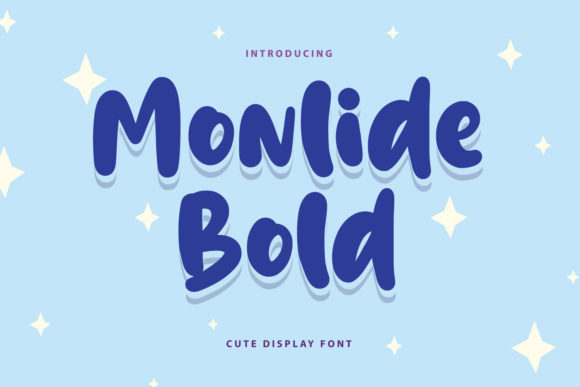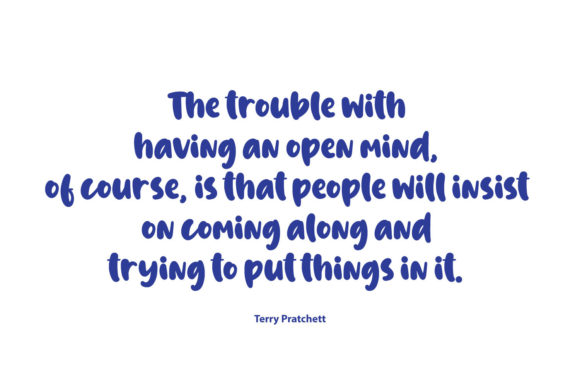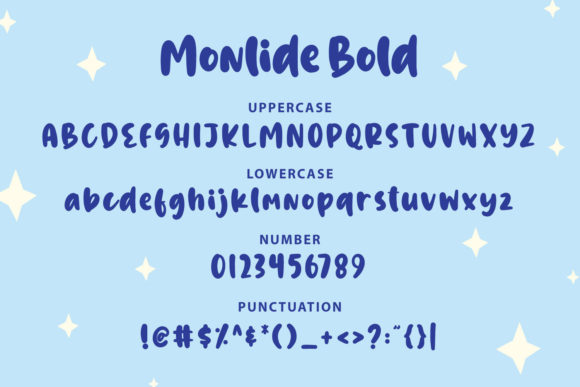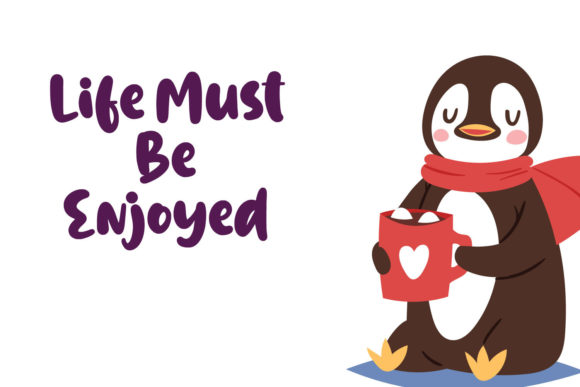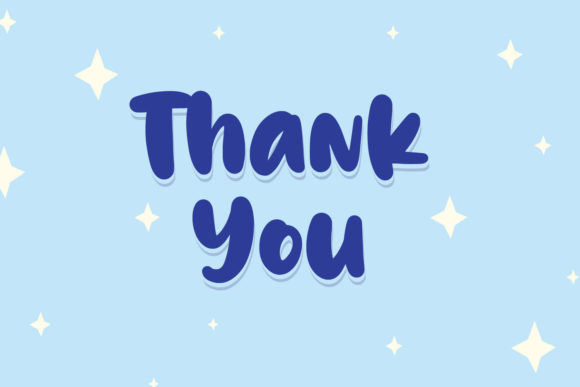
Monlide Bold Font
About Monlide Bold Font
Introducing “Monlide Bold,” a fun and bubbly display font that adds a touch of beauty and playfulness to your designs. Whether you’re working on cartoon-related projects, children’s games, quotes, titles, brand names, book covers, posters, or any other creative endeavor, this font is the perfect choice.
The bold and energetic appearance of “Monlide Bold” immediately grabs attention and creates a cheerful and vibrant atmosphere. The rounded and slightly exaggerated letterforms exude a sense of fun and excitement, making it ideal for projects targeting younger audiences or designs that need a lighthearted and whimsical touch.
One of the key strengths of “Monlide Bold” is its versatility. It can be used across various design contexts, from creating captivating titles for children’s books to adding a playful flair to branding materials. Its bold and bubbly nature injects life and character into your designs, instantly capturing the attention of viewers.
For cartoon-related designs, “Monlide Bold” brings the characters and illustrations to life. The rounded and bubbly letterforms harmonize with the playful nature of cartoons, enhancing the overall visual experience. Whether you’re designing comic strips, animated logos, or character-driven merchandise, this font adds a touch of fun and whimsy that resonates with your audience.
In children’s games and educational materials, “Monlide Bold” creates an engaging and interactive experience. The bold and easily readable letters make it perfect for titles, instructions, and game elements, ensuring that young players can navigate through the game effortlessly. The playful and bubbly aesthetic adds an element of joy and excitement, making the learning process more enjoyable.
When used for quotes or posters, “Monlide Bold” instantly grabs attention and delivers your message with impact. The bold and lively appearance of the font creates visual interest and draws the viewer’s eye to the important words or phrases. It adds a touch of beauty and personality to your quotes or poster designs, making them more visually appealing and memorable.
Whether you’re designing brand names, book covers, or any other creative project, “Monlide Bold” infuses a sense of beauty and vibrancy. Its fun and bubbly nature create a positive and energetic impression, reflecting the essence of your brand or the content of your book. It helps your designs stand out and leaves a lasting impression on your audience.
Choose “Monlide Bold” for your next design project and unleash its fun and bubbly personality. Its versatile nature makes it suitable for a wide range of applications, from cartoon-related designs to children’s games, quotes, titles, brand names, book covers, posters, and more. Let this font bring beauty and playfulness to your creations, captivating your audience and adding a touch of joy to their experience.